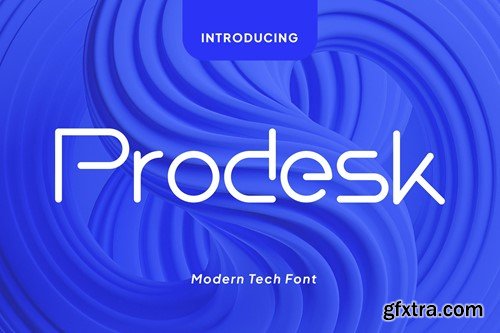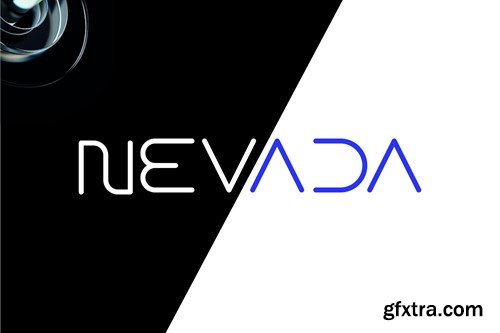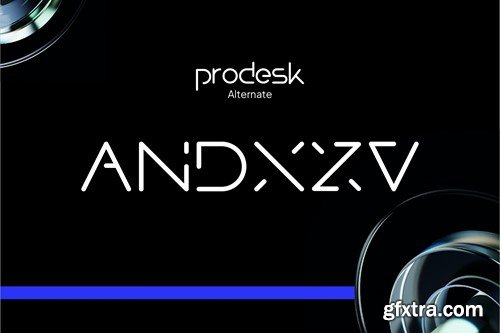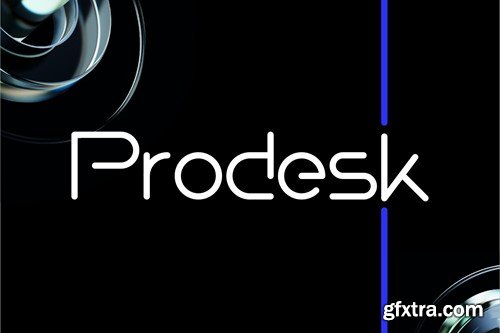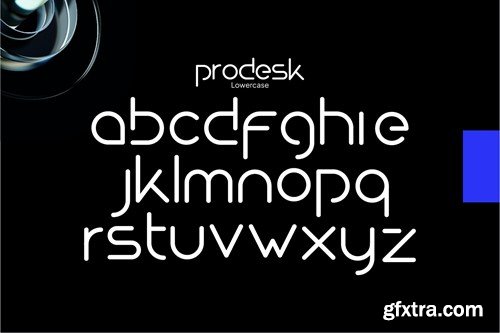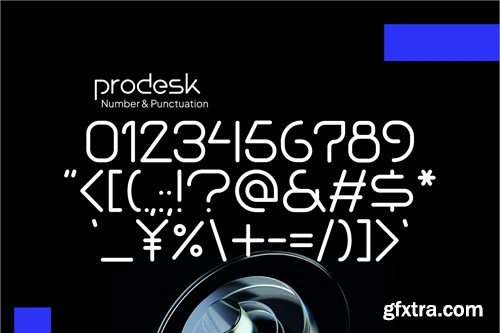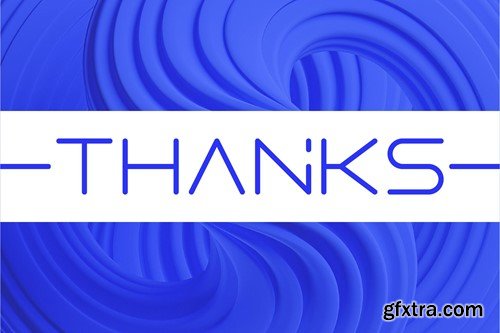
ProDesk - Techno Font KXRUEYZ
Prodesk - Techno Font KXRUEYZ
Prodesk - Techno Font
Eklip Studio offers you one of the best stylish Sans-Serif products. Ideal for logos, headers, titles, prints, and various other creative possibilities.
Achieve extraordinary typography and lettering results with this Prodesk - Techno Font Pack